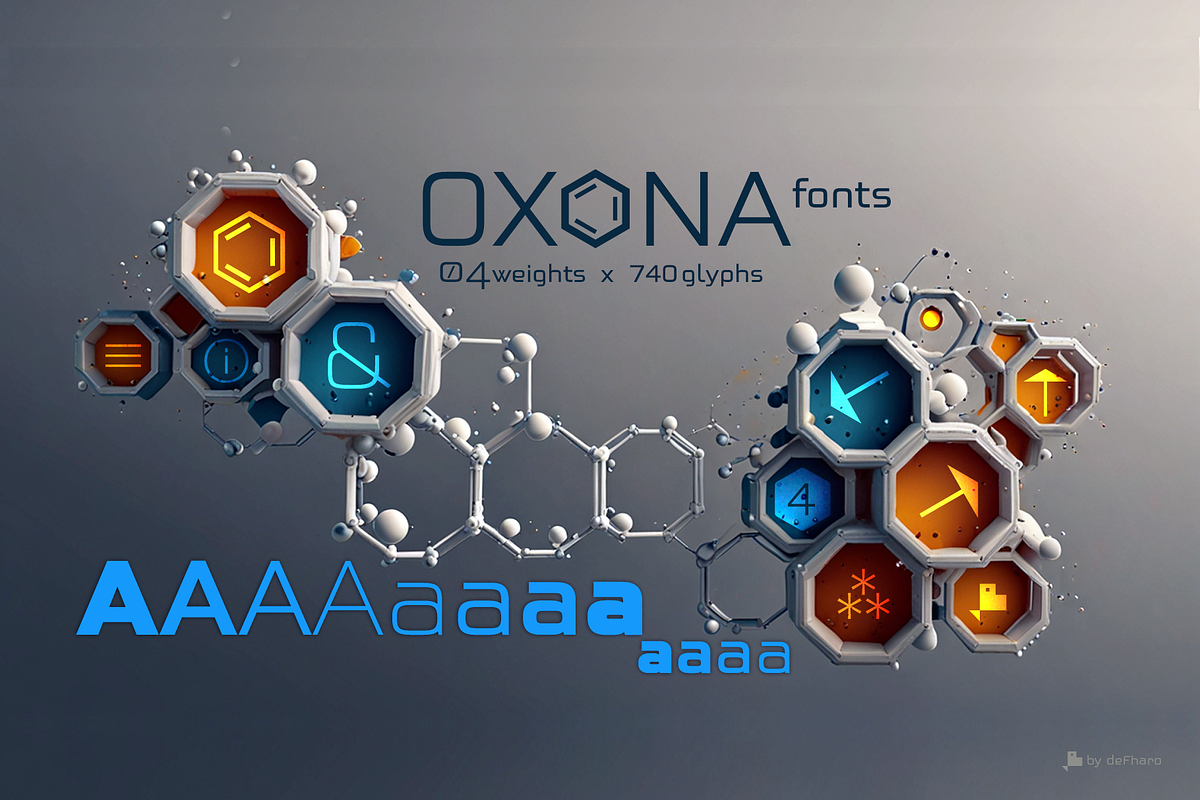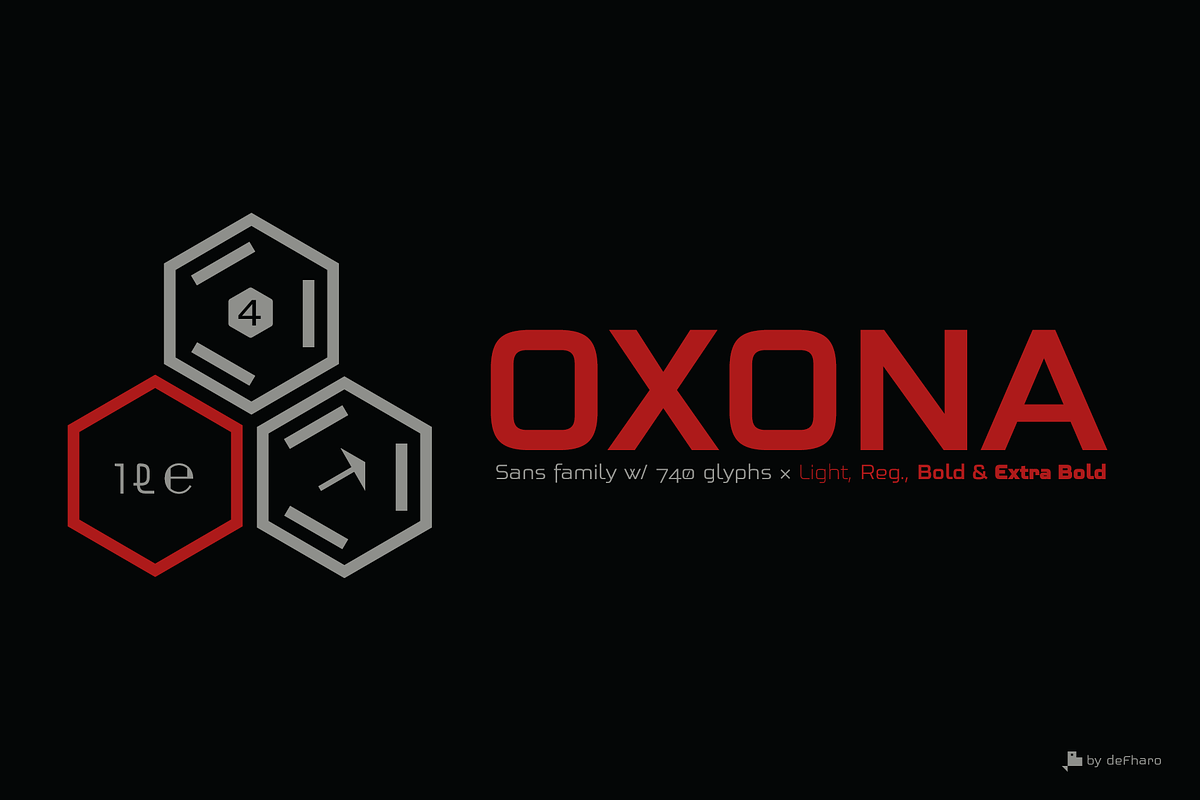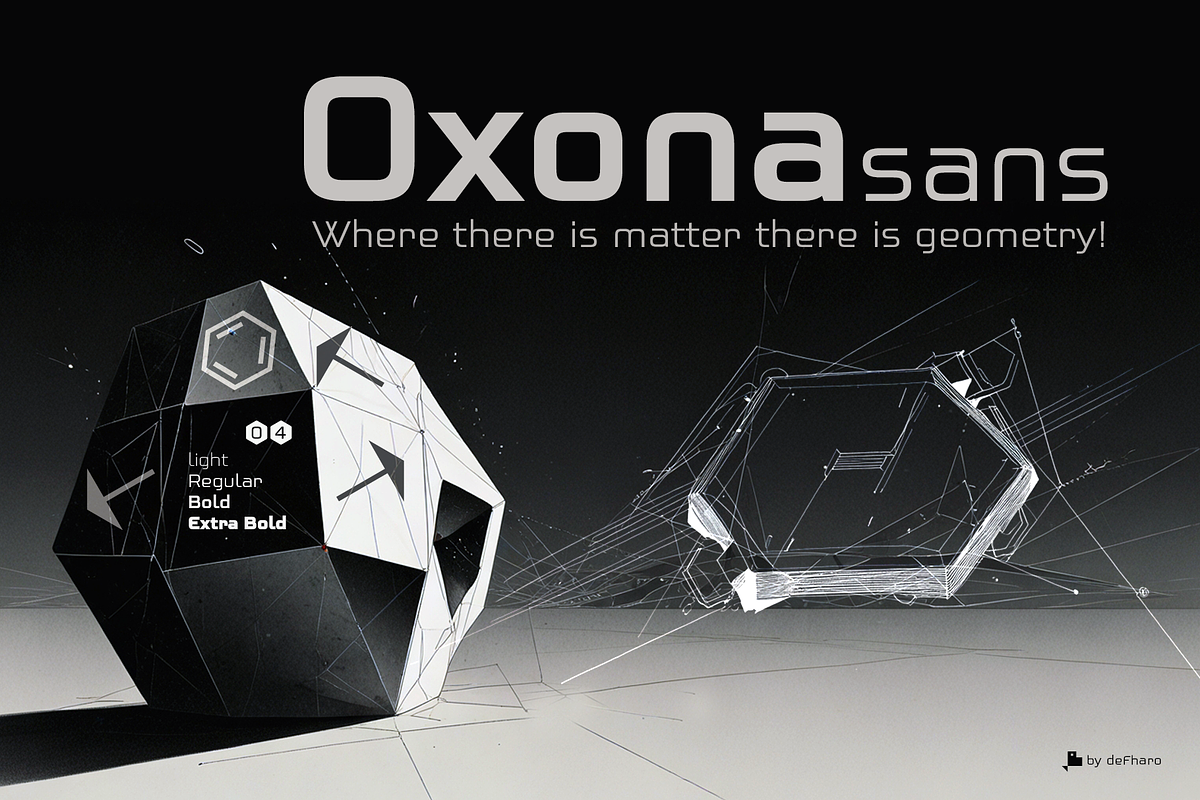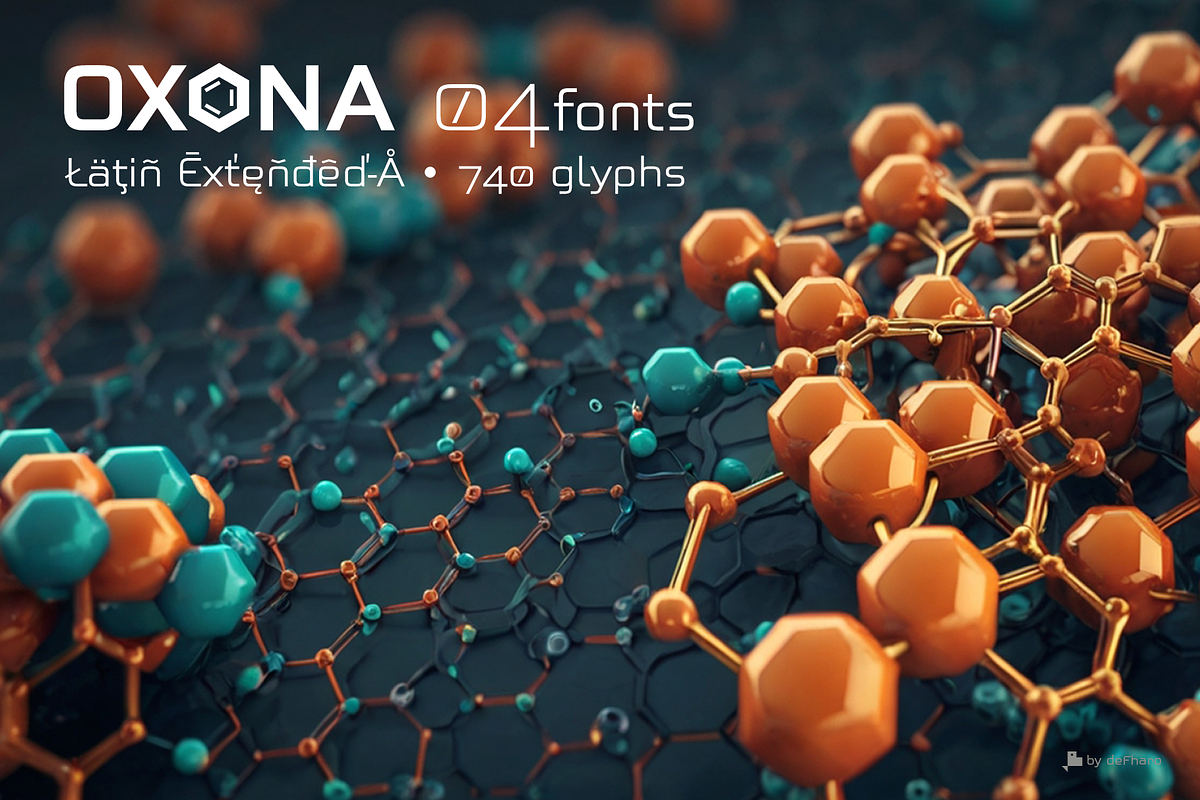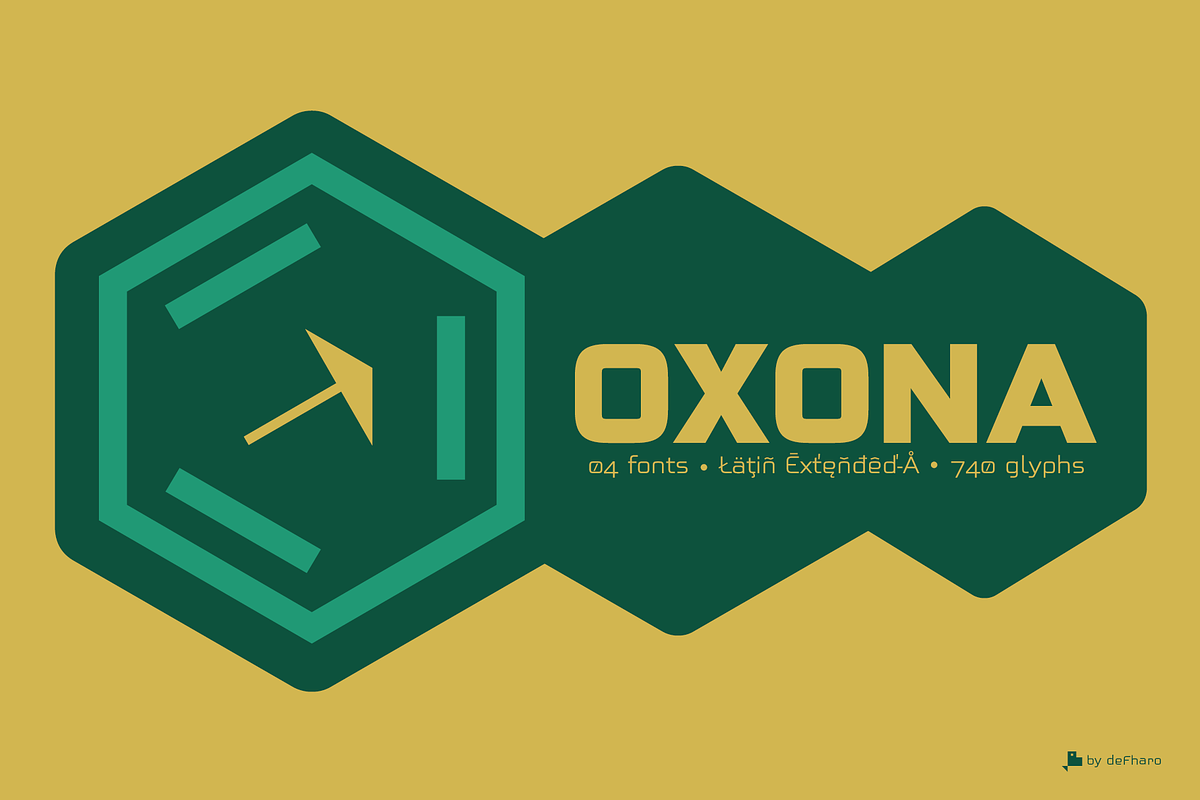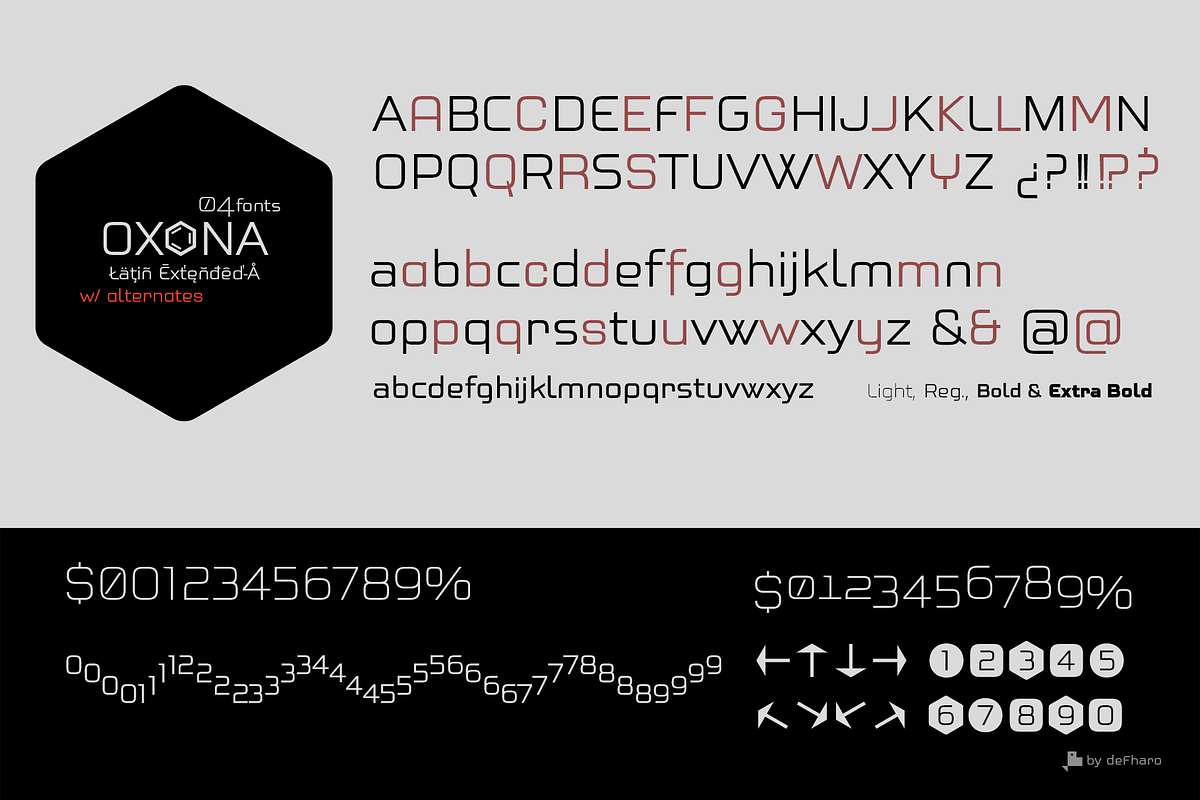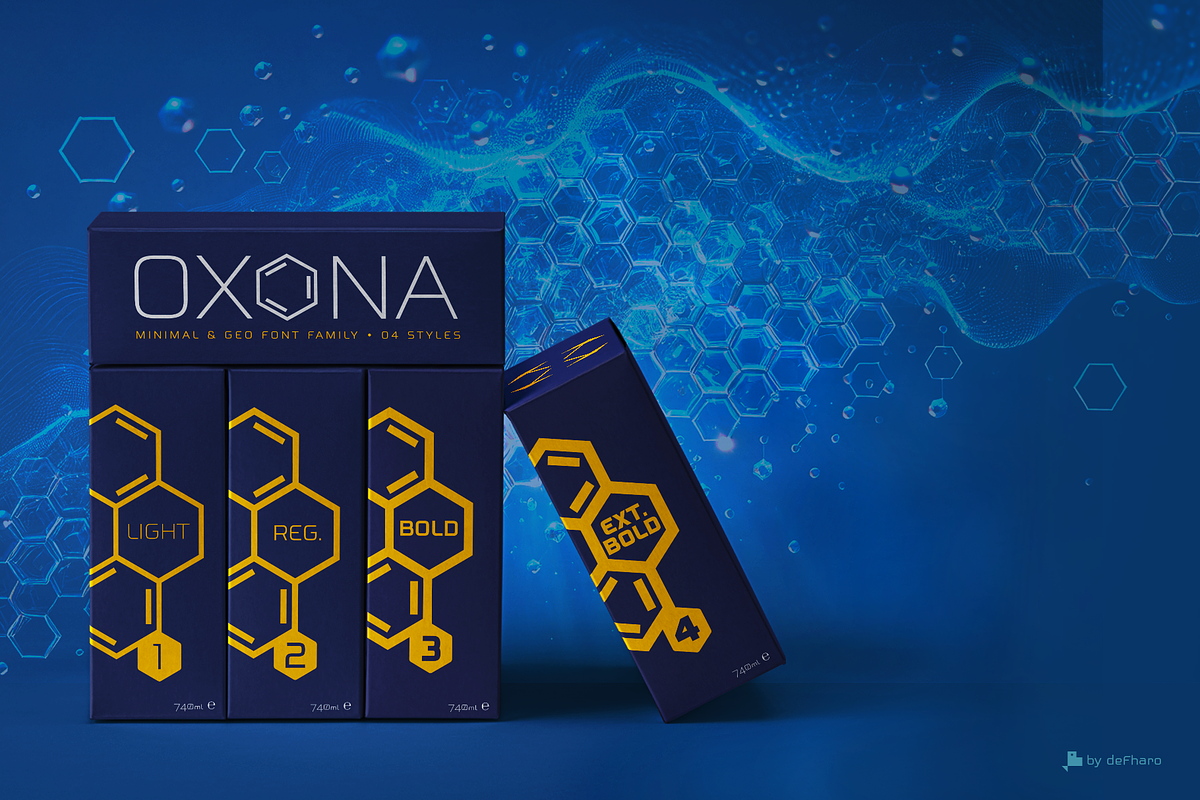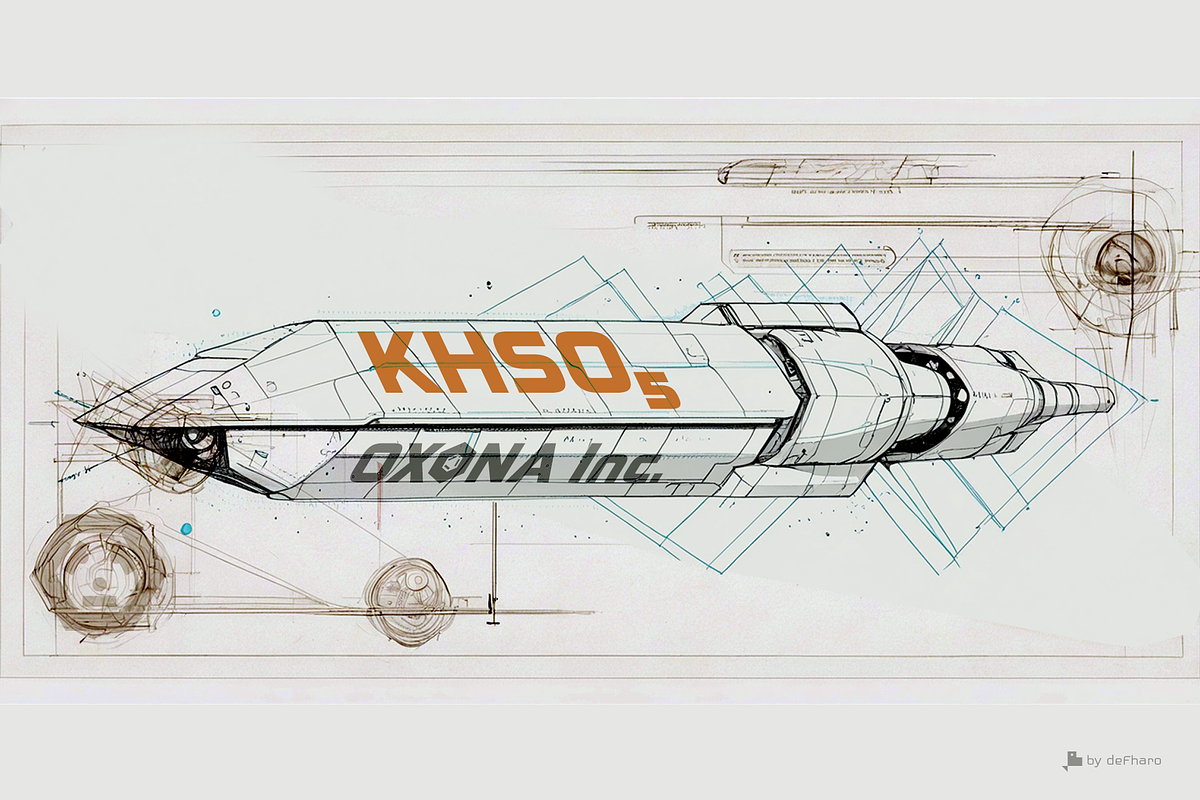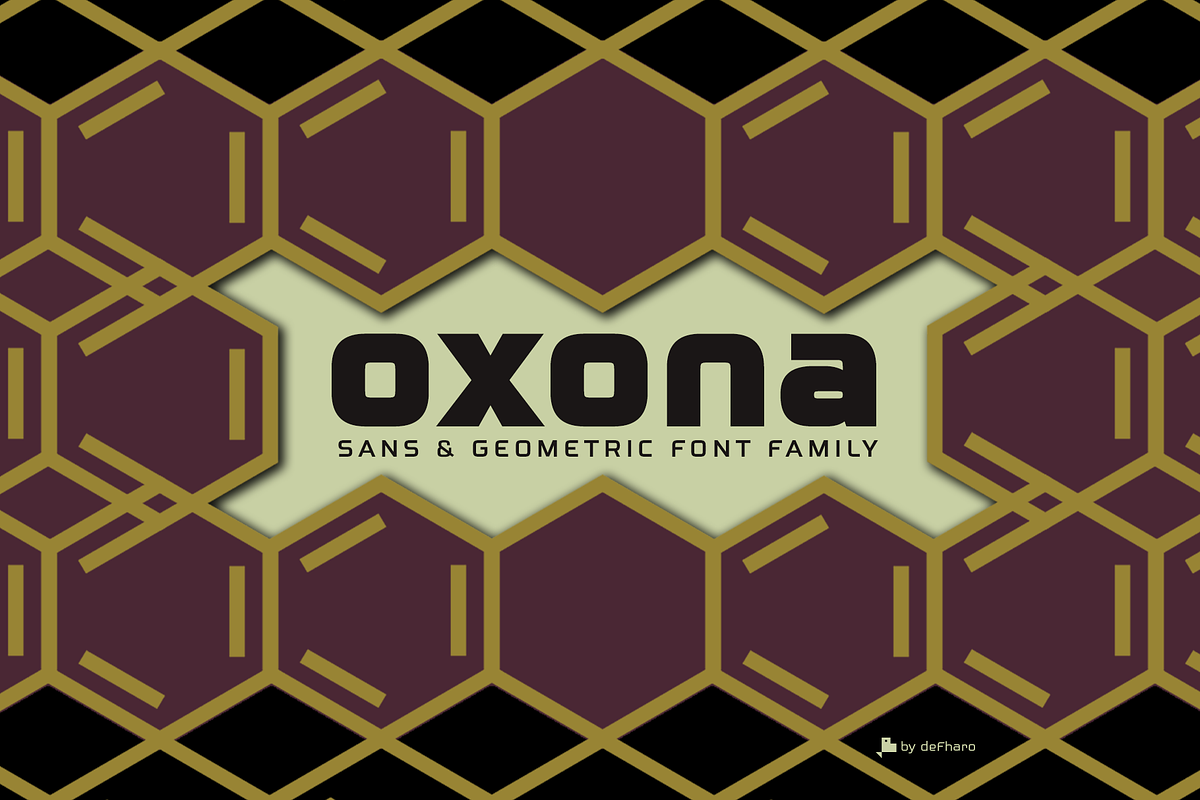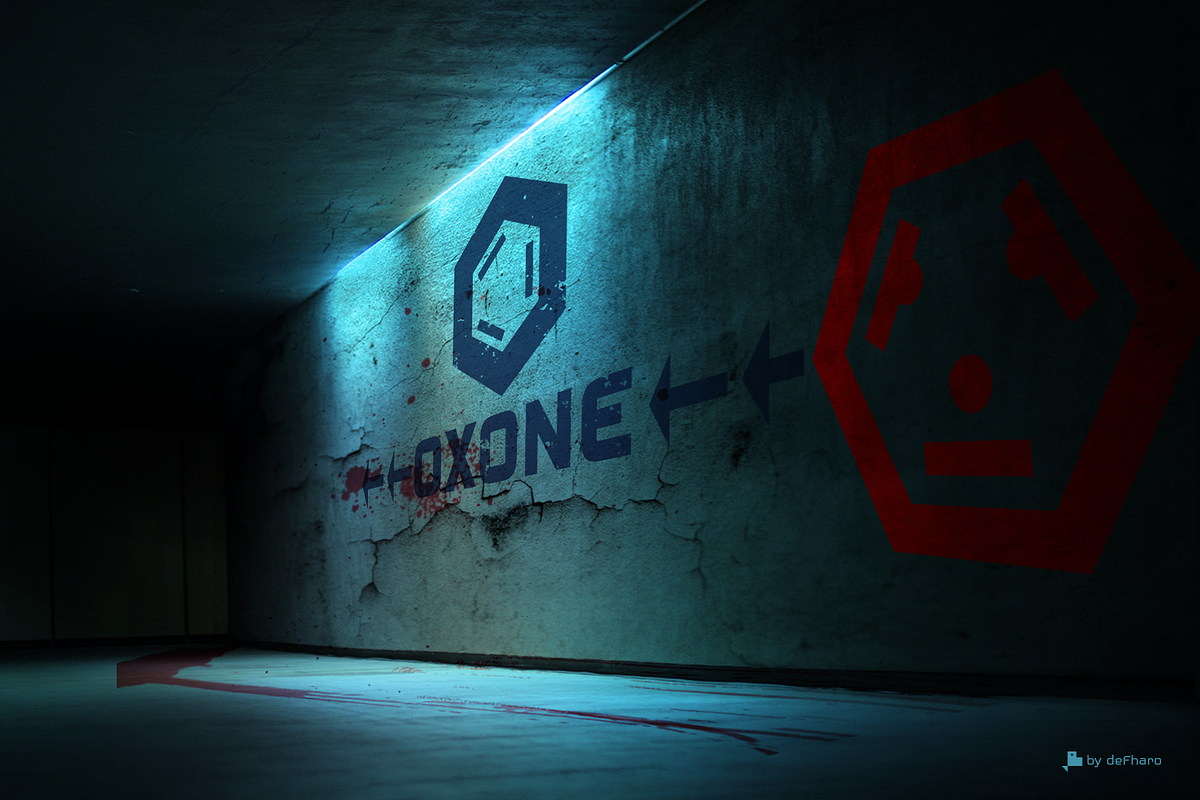
Oxona Sans Serif Roman - 04 fonts
Oxona is a futuristic sans serif with 4 weights, meticulously calculated square proportions that aims to redefine readability and visual impact. Every stroke, every curve and every angle has been polished to achieve a perfect balance between absolute clarity and aesthetic boldness due to its cleanliness, modernity and functionality, the geometric structure and its subtle optical adjustments that generate great harmony and make it a unique typeface, as rational as it is expressive.
Oxona is available in four weights:
Light – Delicate and sophisticated, for texts that exude elegance
Regular – The balanced one, perfect for impeccable text bodies.
Bold – Forceful and expressive, for titles that demand attention.
Extra Bold – The most daring, created to shout ideas with force.
Light, Regular, Bold & Extra Bold
740 glyphs. Latin Extended-A. 160 alternates.
Oxona Roman includes the symbol of Bitcoin and currency symbols.
OpenType Features: Additional languages, All Alternates, Bitcoin, Capital Spacing, Contextual Alternates, Denominators, Discretionary Ligatures, Fractions, Historical Forms, Inferiors, Kerning, Localized Forms, Numbers Small Caps, Numerators, Oldstyle Figures, Ordinals, Scientific Inferiors, Slashed Zero, Standard Ligatures, Stylistic Set, Subscript, Superior letters, Superiors, Superscript.